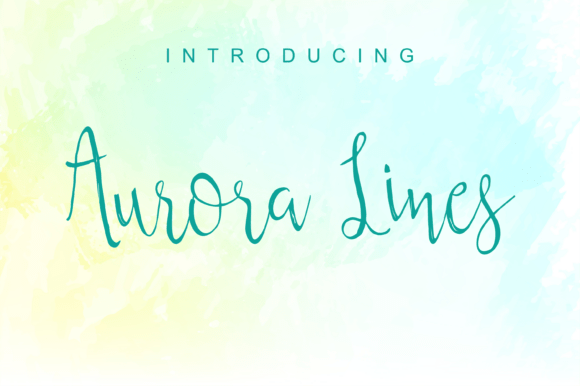
The Magic of Aurora Lines Font: Elevate Your Designs with a Personal Touch
Have you ever been in the middle of a design project, and suddenly, it feels like something’s missing? You’re not alone! I recall working on a wedding invitation design, trying to find the perfect font to convey the couple’s playful yet elegant style. That’s when I stumbled upon Aurora Lines Font, and it instantly transformed my design. In this article, I’ll share my experience with this beautiful handwritten script font and explore its versatility, features, and potential applications.
A Personal Review: What I Love About Aurora Lines Font
Aurora Lines Font has become a staple in my design toolkit, and here’s why:
- ✨ Modern, playful, and elegant: This font strikes the perfect balance between modernity and playfulness, making it suitable for a wide range of design projects.
- ✅ Smooth and natural strokes: The font’s smooth strokes give it a personal and stylish vibe, perfect for adding a touch of warmth to your designs.
- 💡 Versatile: From branding and wedding invitations to social media quotes and merchandise, Aurora Lines Font can be used in various design projects.
- 🔍 PUA-encoded for easy access: The font’s PUA encoding ensures effortless access to all glyphs, swashes, and alternate characters, making customization a breeze.
While Aurora Lines Font is an excellent choice for many design projects, there are a few minor considerations to keep in mind:
- 🤔 Legibility at small sizes: As with many script fonts, legibility may be affected when using Aurora Lines Font at very small sizes. It’s best to use it at larger sizes or for headlines.
- ⚠️ Pairing with other fonts: When pairing Aurora Lines Font with other fonts, ensure that the combination creates visual harmony and doesn’t compete for attention.
Aurora Lines Font was inspired by the natural world and the beauty of handwritten scripts. The designer aimed to create a font that would bring warmth, creativity, and a trendy feel to design projects. With its smooth strokes and modern touch, Aurora Lines Font is perfect for designers who want to add a personal and stylish vibe to their work.
| Font Name | Aurora Lines Font |
| Author | YuningArt Studio |
| What is Aurora Lines Font best used for? | Aurora Lines Font is versatile and can be used for various design projects, including wedding invitations, branding, social media quotes, greeting cards, packaging, and merchandise. |
| Is Aurora Lines Font PUA-encoded? | Yes, Aurora Lines Font is PUA-encoded, ensuring effortless access to all glyphs, swashes, and alternate characters. |
| What are some tips for pairing Aurora Lines Font with other fonts? | When pairing Aurora Lines Font with other fonts, choose fonts that create visual harmony and don’t compete for attention. Experiment with different font combinations to find the perfect match. |
In conclusion, Aurora Lines Font is a beautiful, modern script font that can elevate your designs with its personal and stylish vibe. With its versatility, smooth strokes, and PUA encoding, it’s perfect for designers who want to add a touch of warmth and creativity to their projects.